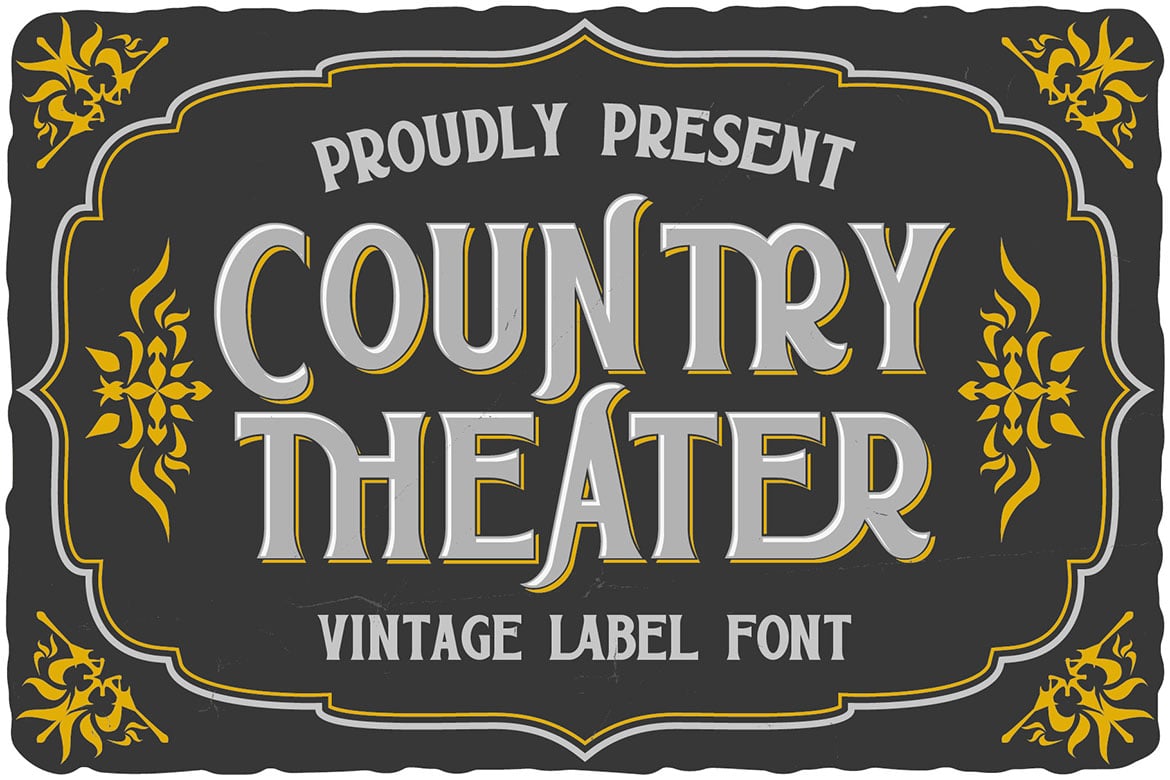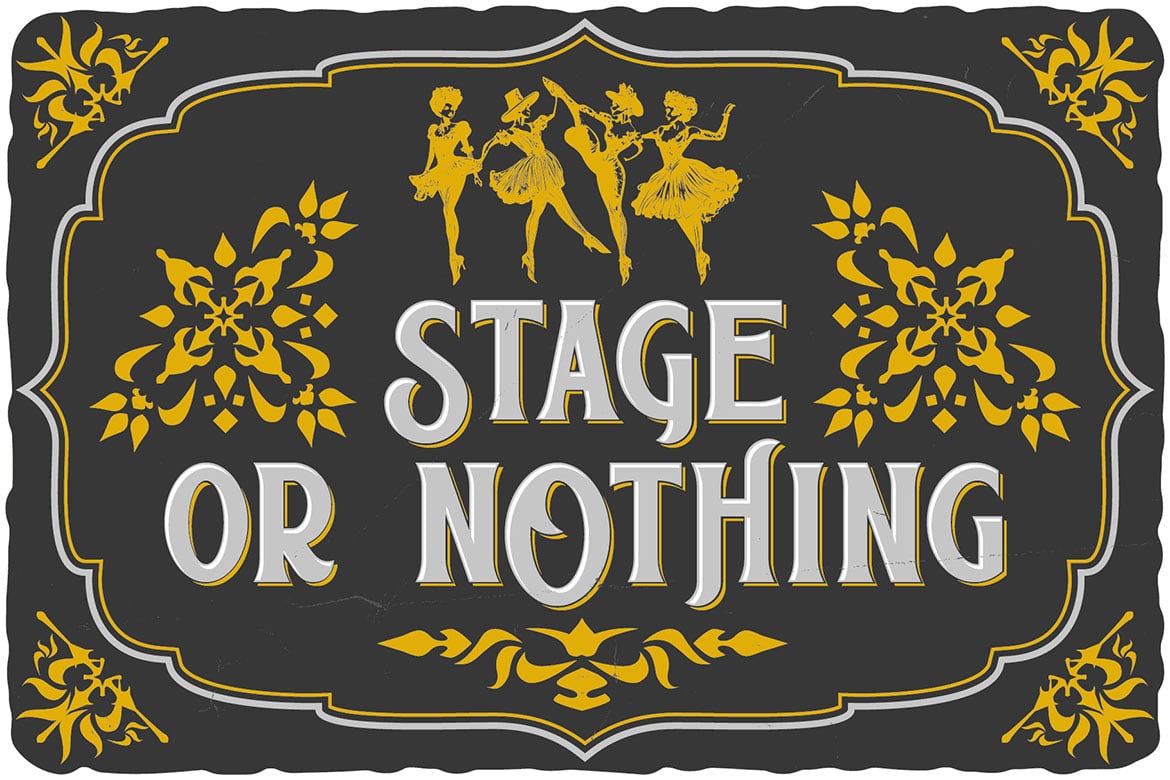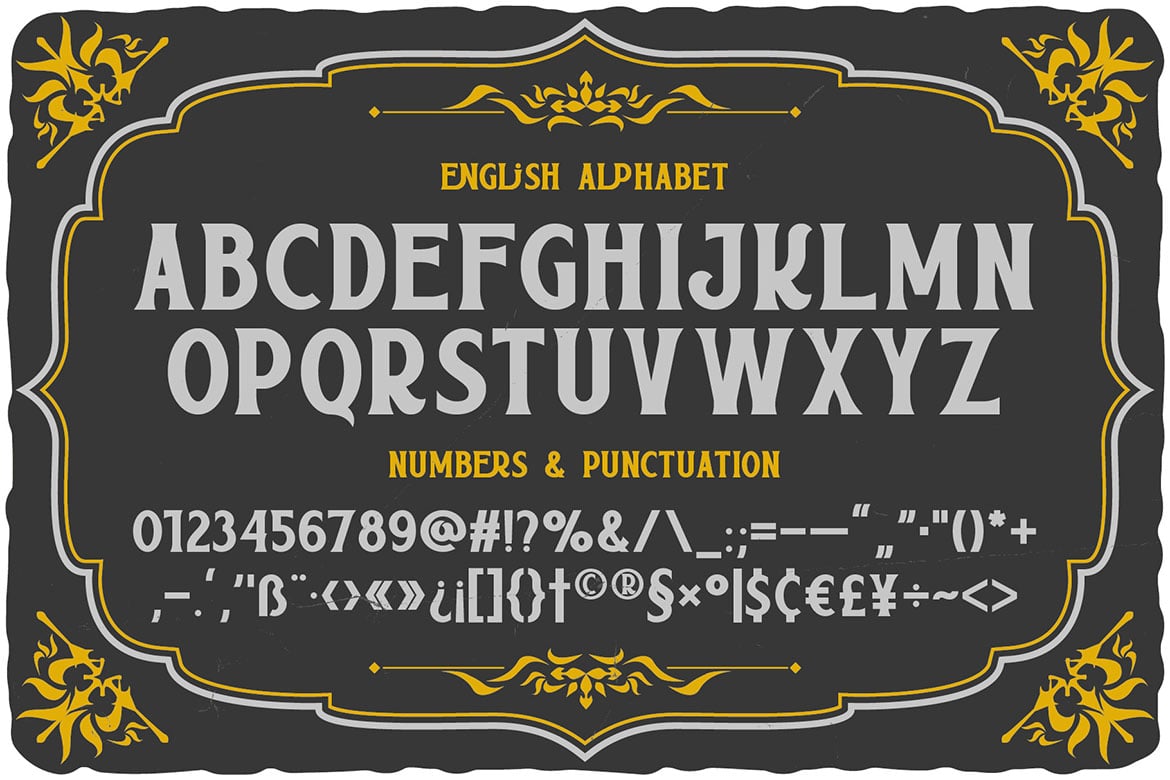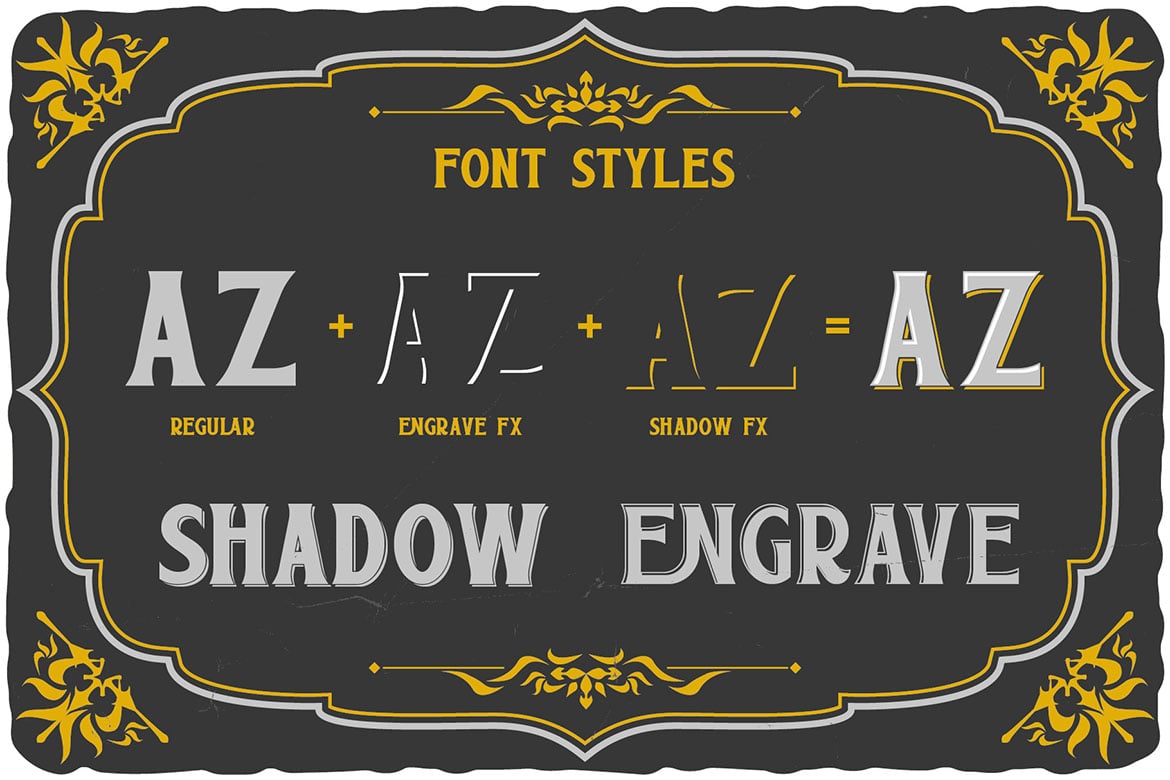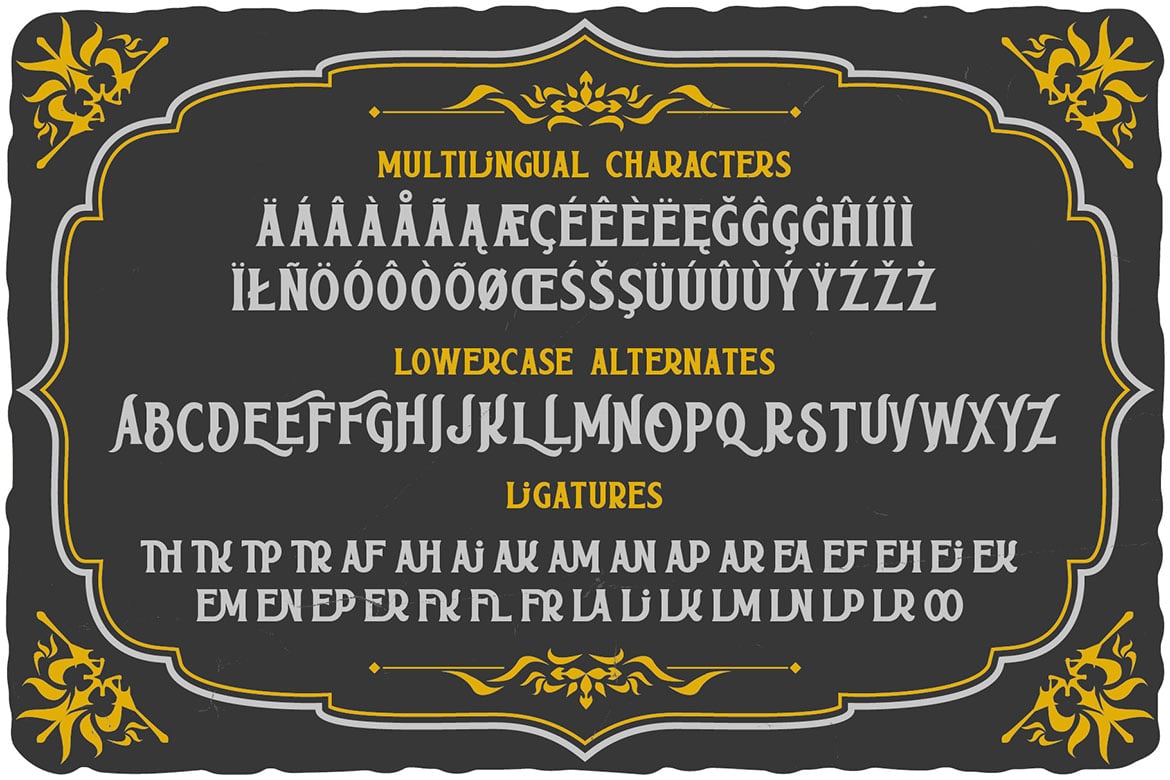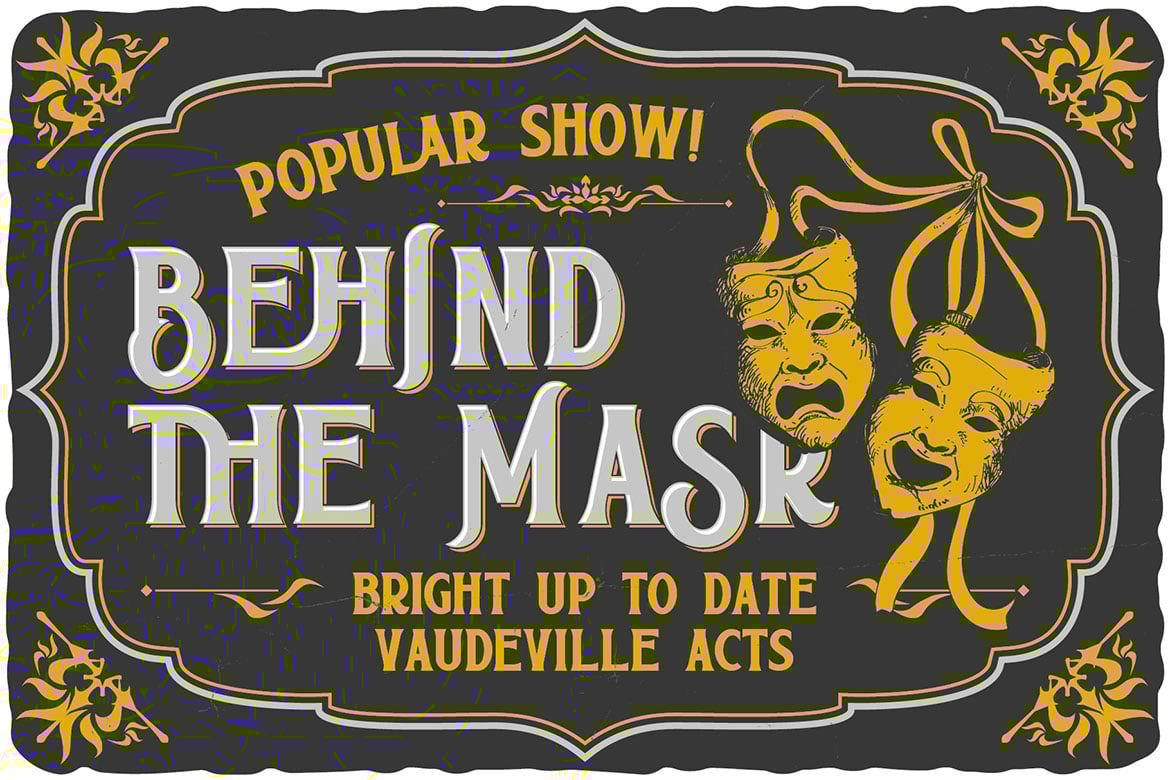
Country Theater Vintage Label Font
Unique, creative, vintage, fantasy, decorative, game & layered label serif font. Comes with multilingual support , alternates & ligatures + 5 font versions – great for your new logo, monogram or branding project.
- 5 font versions (you can create layered effects)
- Multilingual support, alternates & ligatures
- Great for retro or vintage style branding projects